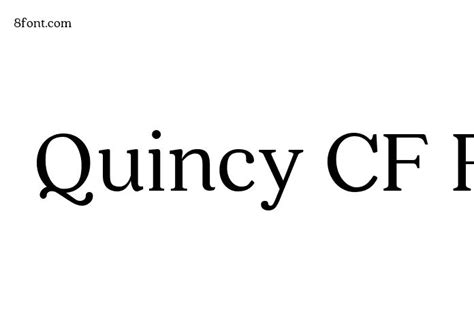
Quincy Cf Font. This is a contemporary text serif typeface designed with rounded edges, fluid and dynamic. Web explore quincy cf designed by connary fagen at adobe fonts.
Web quincy cf serif font. Web explore quincy cf designed by connary fagen at adobe fonts. This is a contemporary text serif typeface designed with rounded edges, fluid and dynamic. Web quincy® cf's warm letterforms and medium contrast give any text a smooth, flowing motion. Web quincy cf's warm letterforms and medium contrast give any text a smooth, calming motion. Web quincy® cf's warm letterforms and medium contrast give any text a smooth, flowing motion.
Web quincy® cf's warm letterforms and medium contrast give any text a smooth, flowing motion. Web quincy® cf's warm letterforms and medium contrast give any text a smooth, flowing motion. Web explore quincy cf designed by connary fagen at adobe fonts. Web quincy cf's warm letterforms and medium contrast give any text a smooth, calming motion. This is a contemporary text serif typeface designed with rounded edges, fluid and dynamic. Web quincy® cf's warm letterforms and medium contrast give any text a smooth, flowing motion. Web quincy cf serif font.